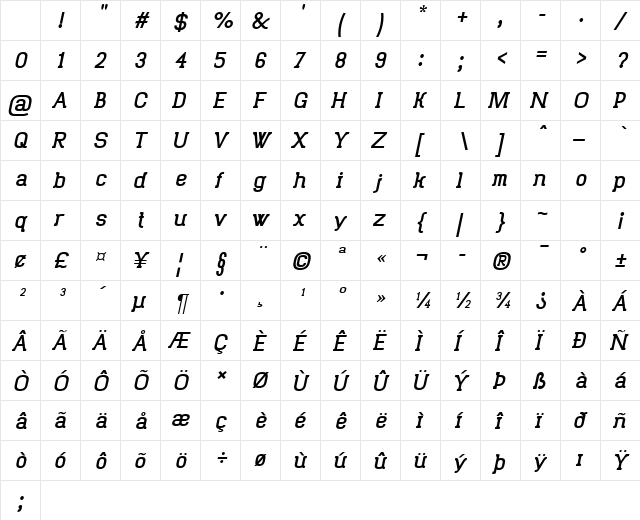
Complete Trunkmill Oblique glyph index. Displaying only characters natively supported by Trunkmill Oblique font.
Trunkmill is a composed and adaptable typeface that performs quietly and consistently across a wide range of design contexts. The slanted form adds forward momentum and visual energy.